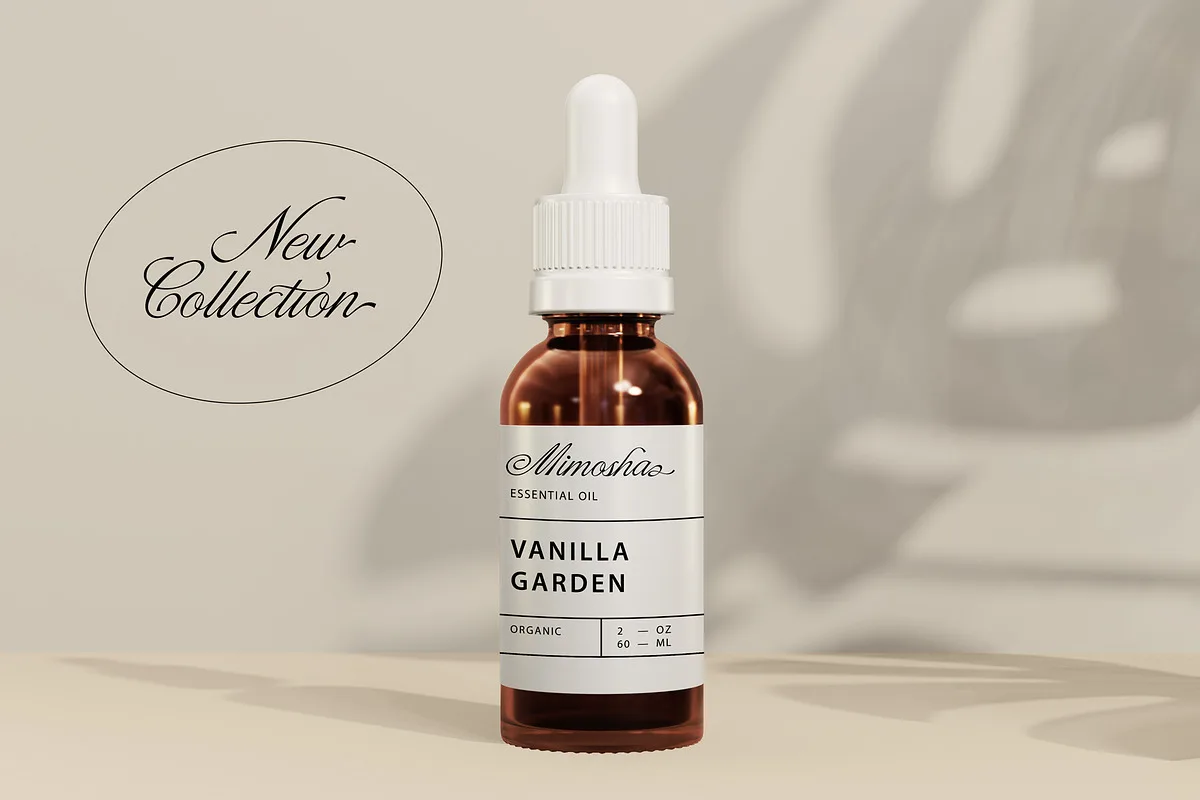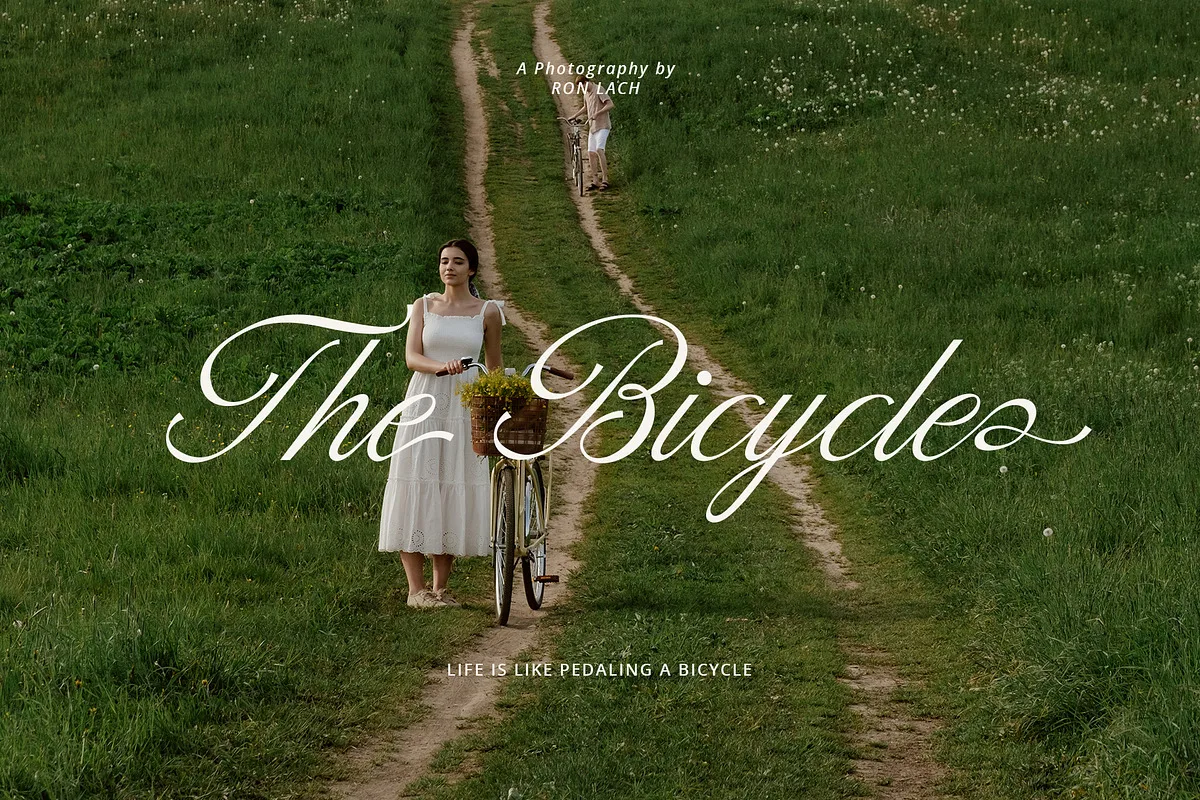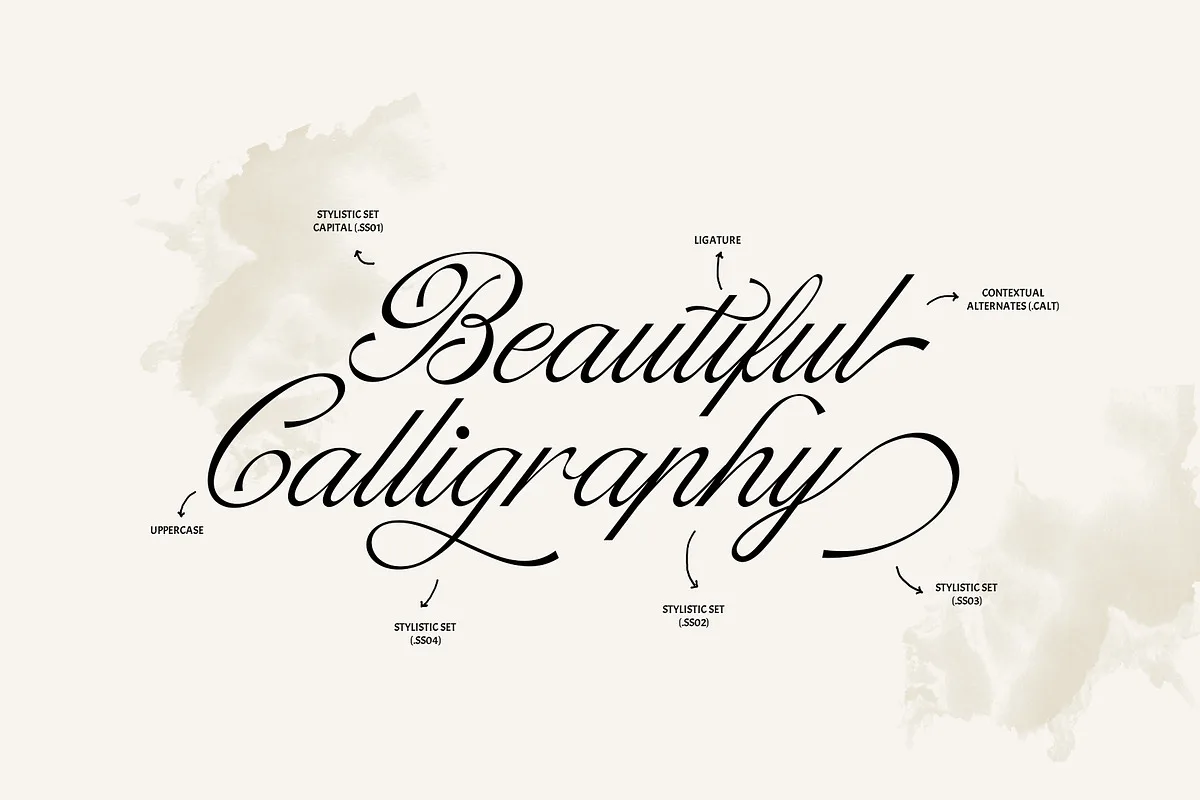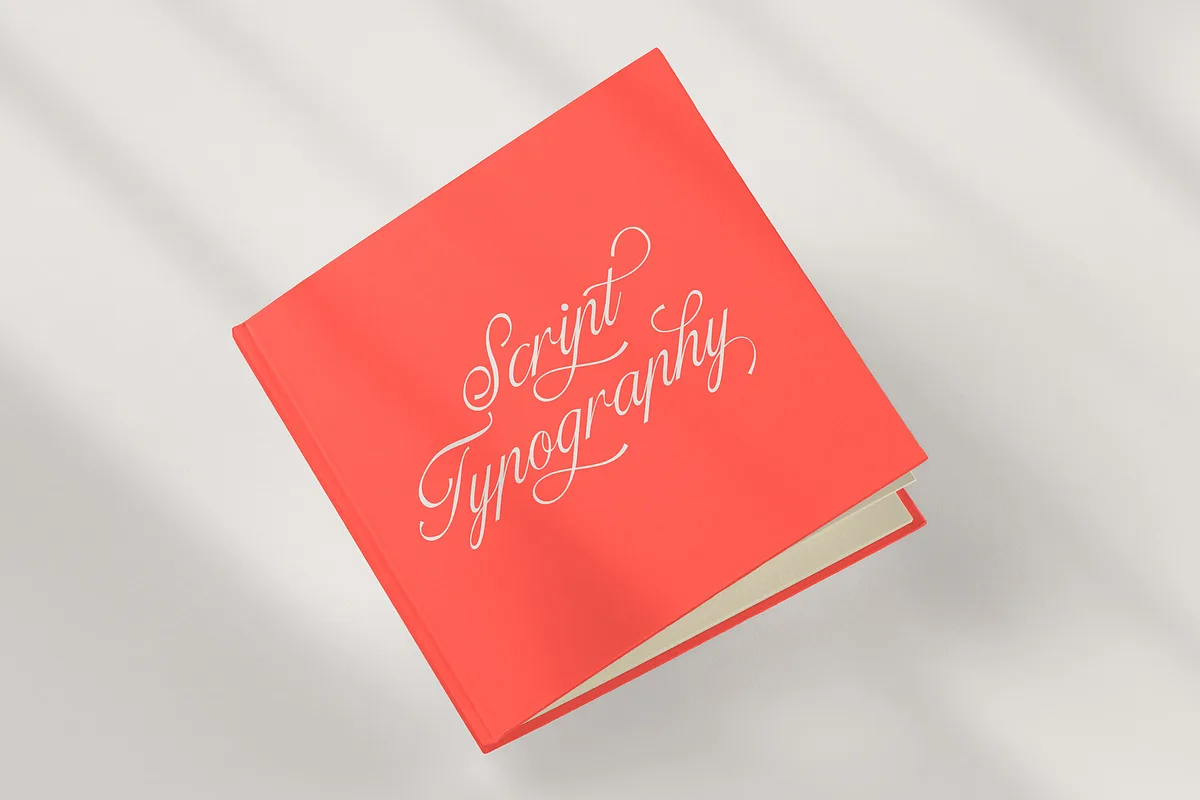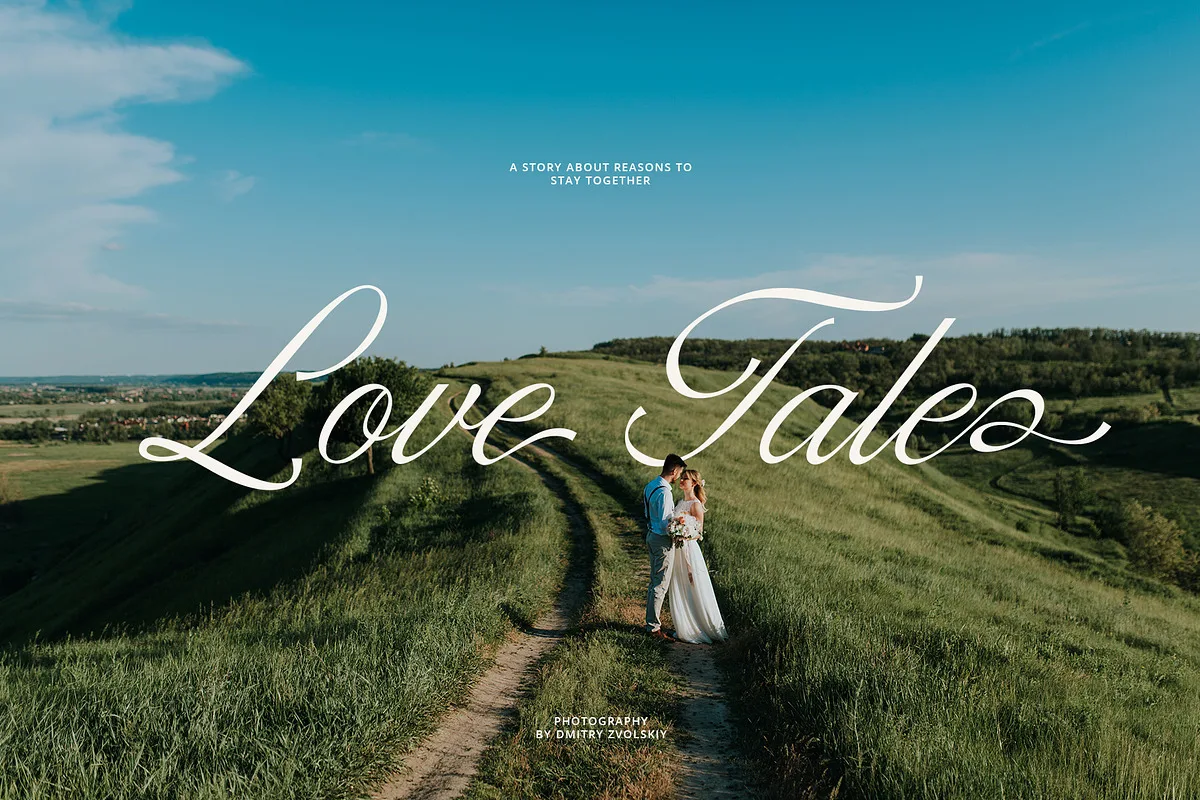
Dantiane is a classic elegant script font, this font is equipped with various opentype features such as 90+ stylistic sets, Contextual Alternative, ligatures and also multi-language support. Equipped with 90+ stylistic sets, this font has a wide selection of glyphs / characters.
This font is perfect for your design needs such as wedding invitation, logo design, branding, social media design, book, magazine, etc.
- Uppercase
- Lowercase
- Punctuation and Marks
- Symbols
- Contextual Alternative
- 90+ stylistic set & Ligatures
Dantiane – Script Typeface